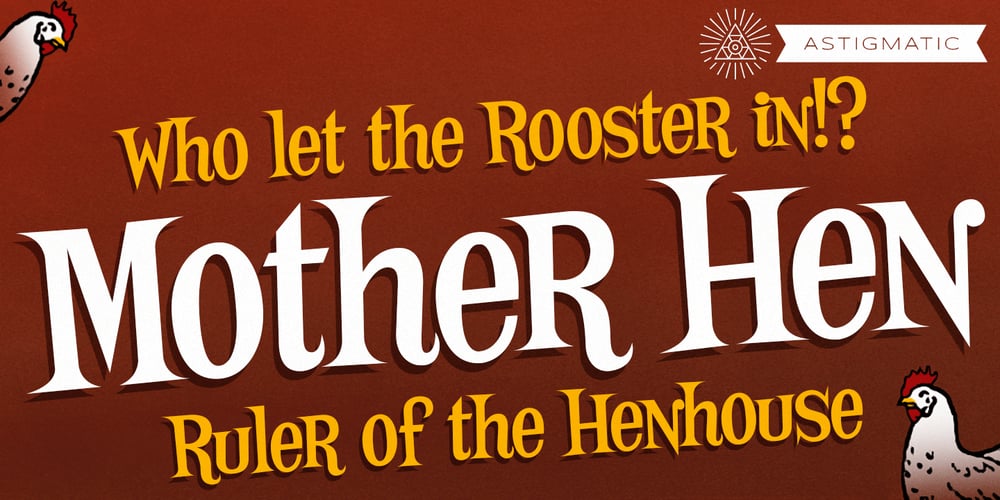
Mother Hen AOE Font Family was designed by Brian J. Bonislawsky and published by Astigmatic. Mother Hen AOE contains 2 styles and family package options. Mother Hen is an offbeat comic latin typestyle full of quirkiness and bounce. Inspired by the 1965 Looney Tunes cartoon titled “Highway Runnery”, this typeface has all of the spunk of its source. The end result, a lively tribute to its origin, easy to read and fun to look at, a perfect typeface for childrens’ books, advertisements, and playful designs!